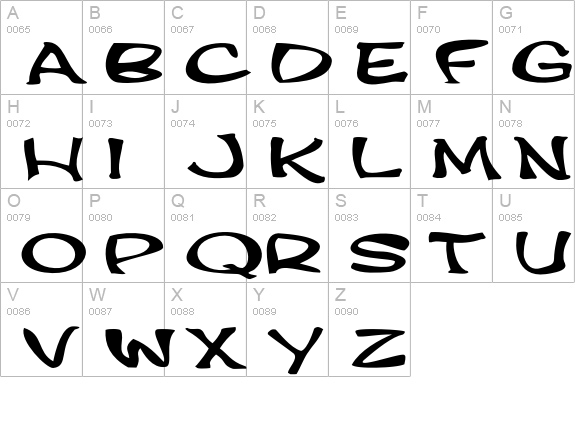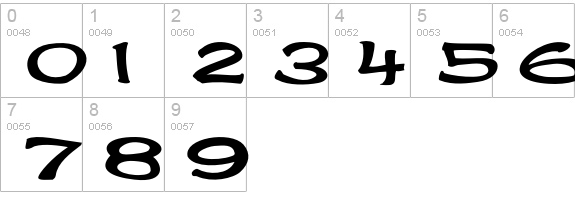
PHatFont Font Details
Introducing PHatFont, a visually stunning and versatile typeface that is bound to captivate and elevate your design projects. This font embodies a perfect blend of modernity and sophistication, making it suitable for a wide range of creative endeavors. With its sleek and eye-catching characters, PHatFont effortlessly exudes a sense of elegance and professionalism. Whether you're designing a logo, creating a website, or crafting a striking poster, this font is guaranteed to make a lasting impression. What sets PHatFont apart is not only its impeccable aesthetics, but also its accessibility. We are delighted to offer this remarkable font to you completely free of charge. Yes, you read that right - PHatFont is freely available to download at FontsMarket.com. By providing this font at no cost, we aim to empower designers and creatives from all walks of life to unleash their creativity and bring their visions to life. PHatFont embodies the belief that exceptional design should be accessible to all, regardless of budget constraints. Furthermore, PHatFont boasts an extensive character set, including numerals, punctuation marks, and a variety of special characters. This comprehensive range ensures that you have the tools to truly personalize and enhance your designs. Whether you're a seasoned designer or just starting on your creative journey, PHatFont is here to elevate your work to new heights. Its versatility and elegance make it suitable for a multitude of projects, from branding and advertising to editorial design and beyond. Discover the power of PHatFont today and unlock a world of design possibilities. Visit FontsMarket.com to download this extraordinary font for free and embark on a journey of limitless creativity.